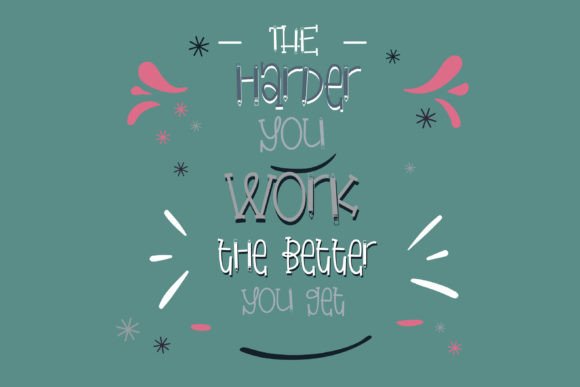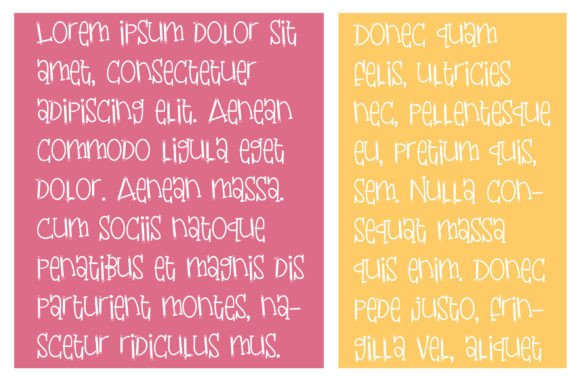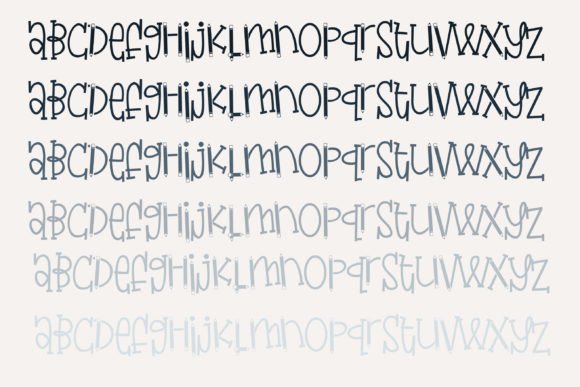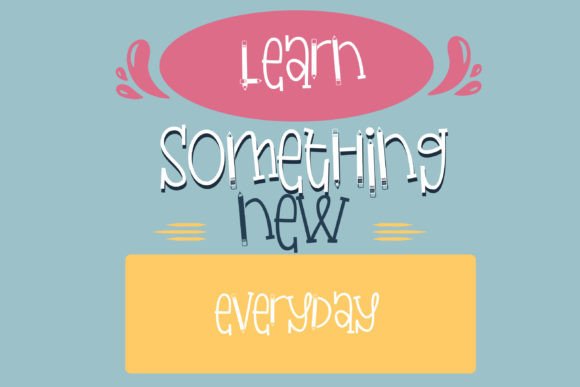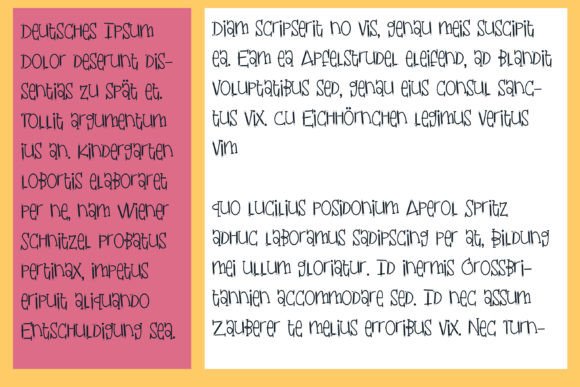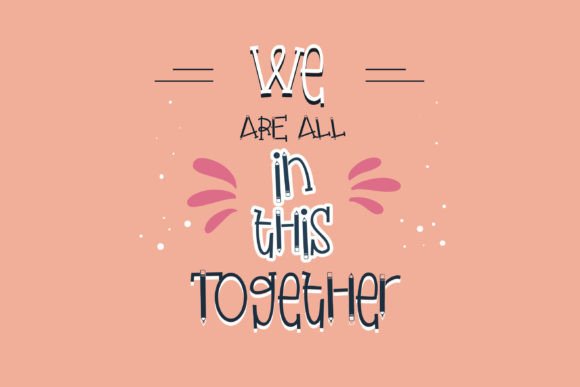
Introduction to Pencil Slab Font
Pencil Slab is a fun, hand-drawn font with a playful touch.
It features chunky, serif letters and little pencil details, making it perfect for creative projects and adding a unique, artistic flair .